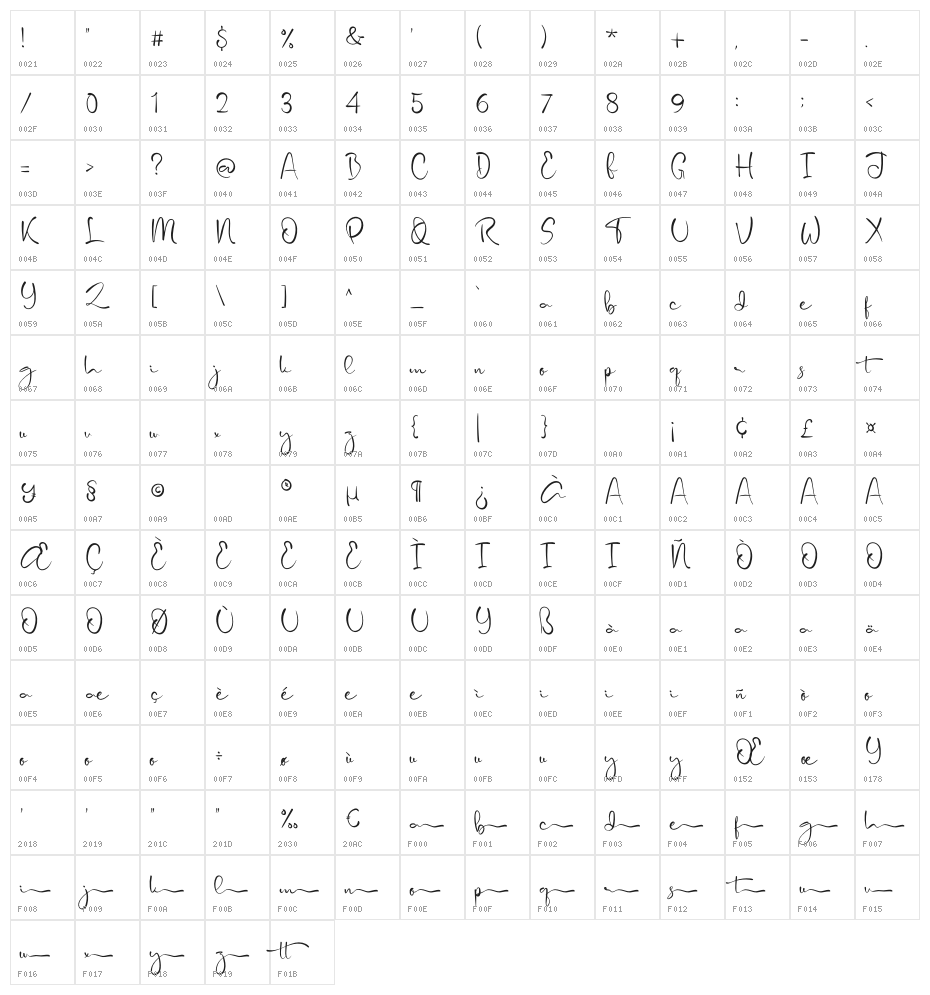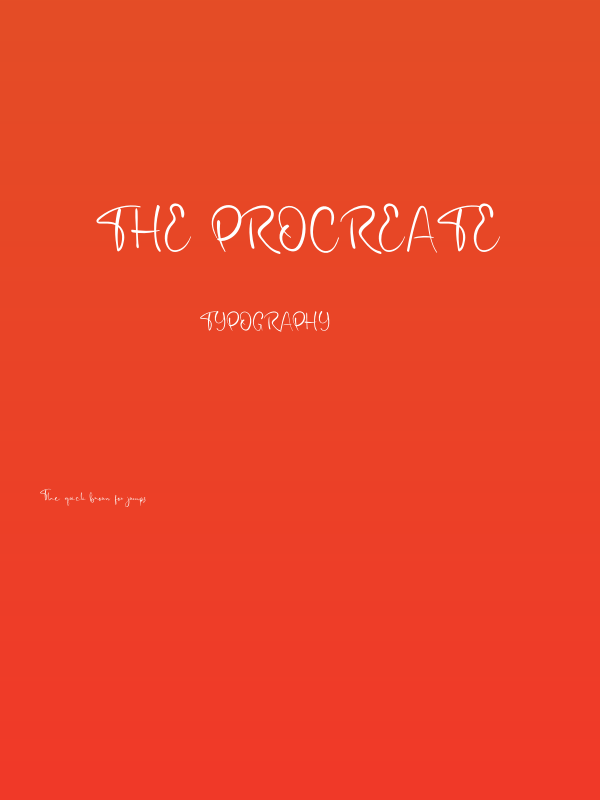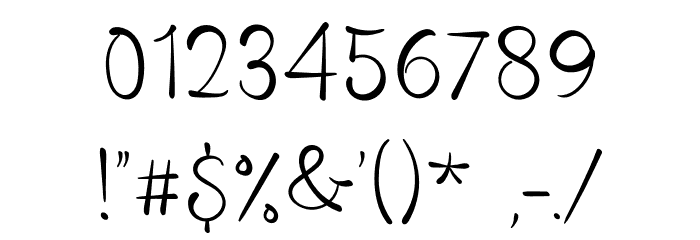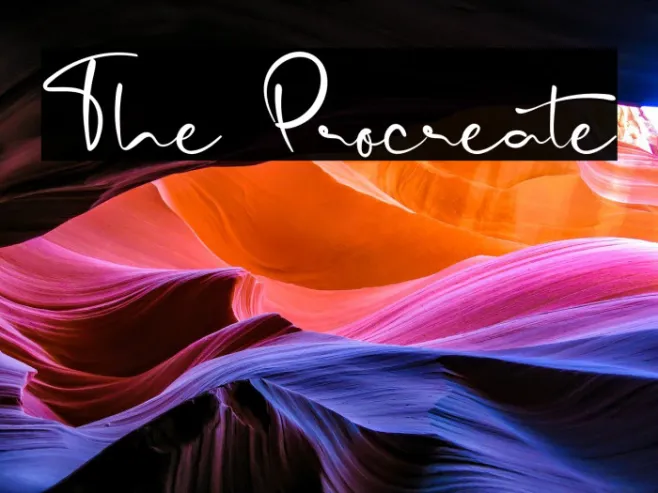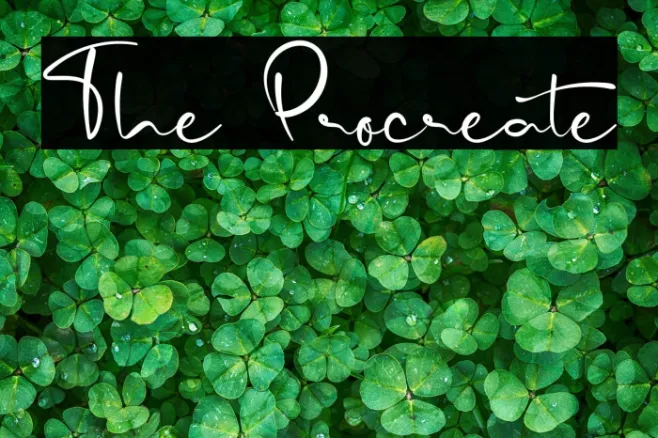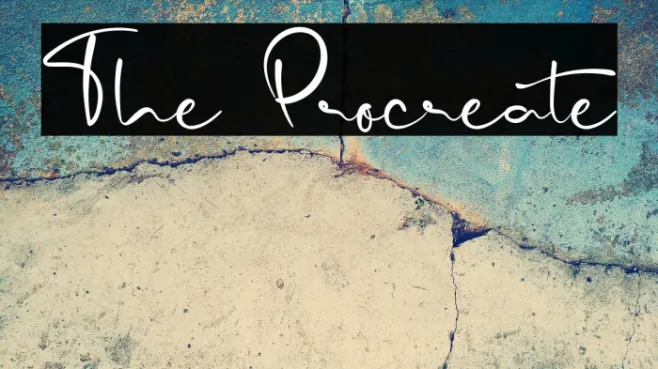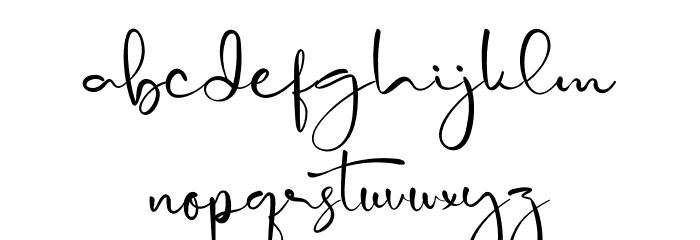
The Procreate Font
The Procreate Description
This font features a playful and artistic script style with a hand-drawn appearance. The uppercase letters are tall and slightly narrow, with unique flourishes that add a whimsical touch. The lowercase letters are more fluid, with a cursive-like flow that enhances the handwritten feel. Numbers and special characters maintain the same artistic flair, ensuring consistency throughout. The overall design is both elegant and casual, making it suitable for creative projects that require a personal touch.